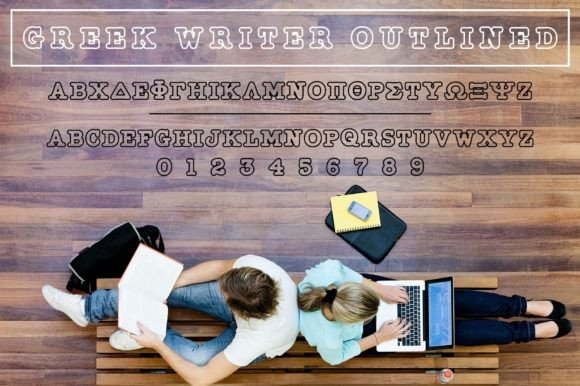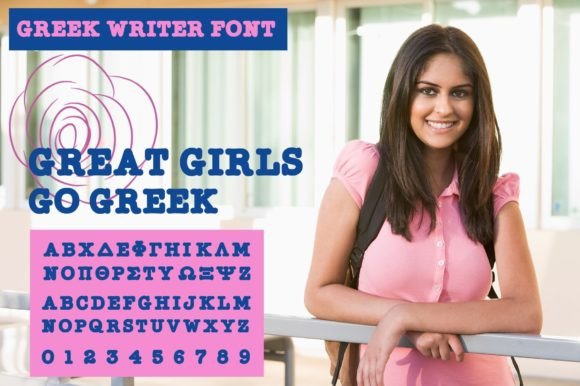
The Greek Writer is perfect for designing Greek and Collegiate T-shirts, promotional products, and more. This unique serif font is designed specifically for fraternities and sororities, so it does not have a lower case.
Greek Writer Font